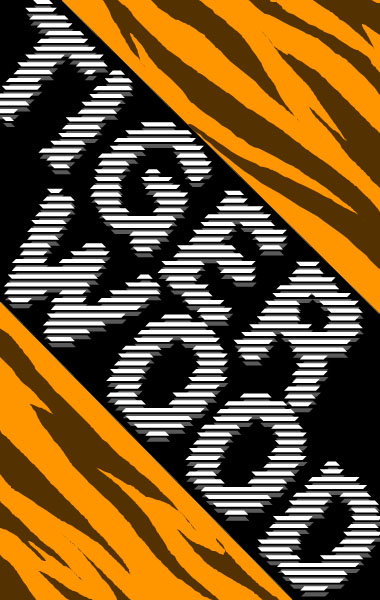
FS Tigerwood
This one is a little older. It became interesting again for the inline competition, even if its not a "real" inliner
Really cool technique.
I'm with you kix, it's more hatched rather than an inline font. But it's nice.
Brilliant!
At first glance the stripes show wonderful randomness, what you would expect from a fur (of a tiger?). High magnification reveals the simple basis of the effect. Astonishing, brilliant. 10/10
Wow! This is very cool. Frodo7 sums it up perfectly.
A nice fontstruction with a technique worth mentioning.
I realy love the well calculated imperfection of the stripes